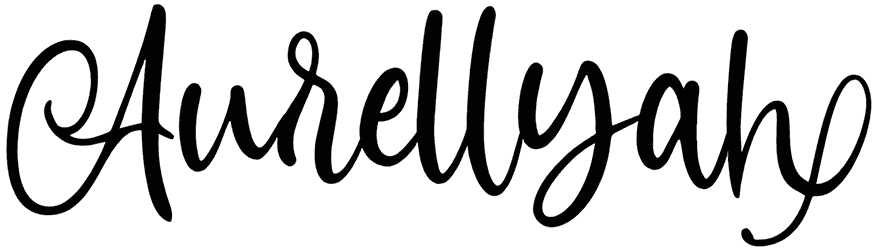
Aurellyah Lovely Font
A chic and lovely face is able to make your text adorable, and Aurellyah Lovely can do it right. This calligraphy font would make your words dance in texts with its sweet curves. As a script font set, Aurellyah Lovely for your coming projects, such as product logos, magazines, greeting cards, or similar, and gives them a classic mood.